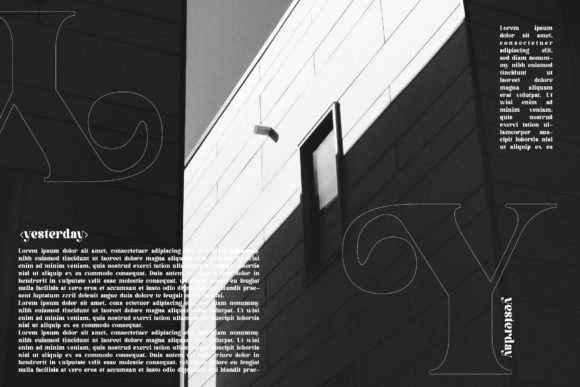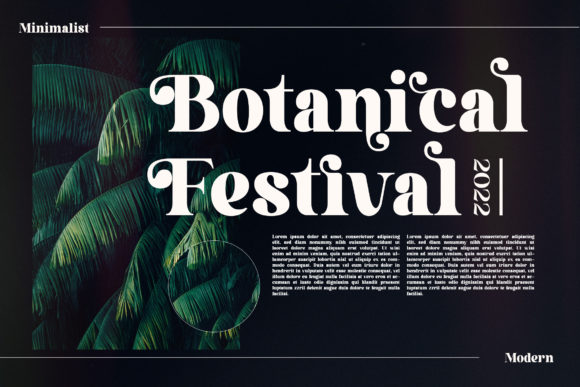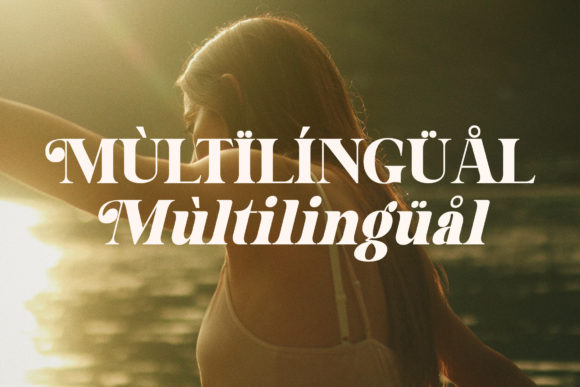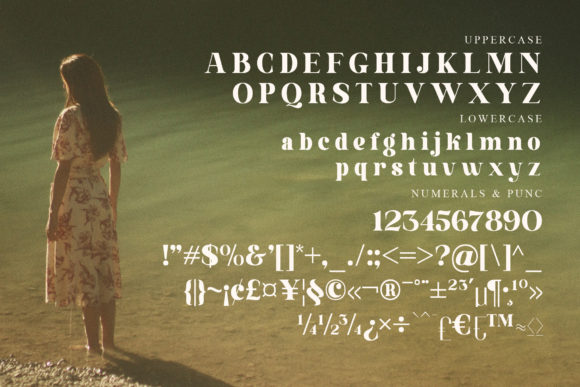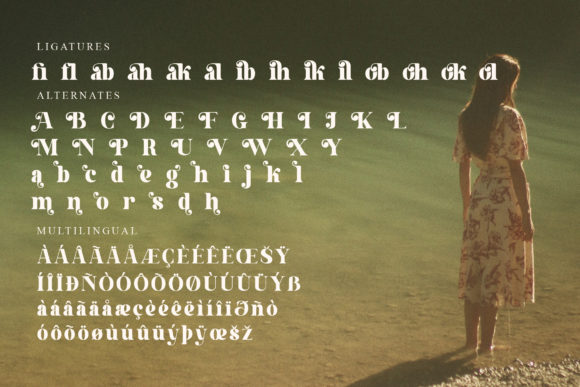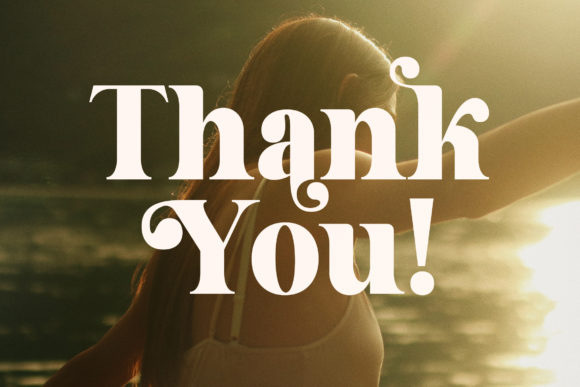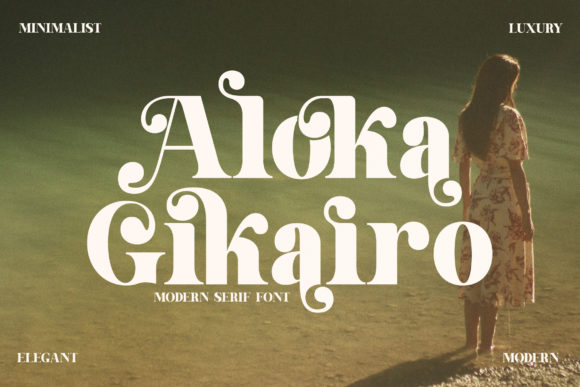
Aloka Gikairo Font
About Aloka Gikairo Font
Aloka Gikairo is a stylish and serif script font. It is PUA encoded which means you can access all of the amazing glyphs and ligatures with ease!
Its distinct and well balanced letters make this font a masterpiece.